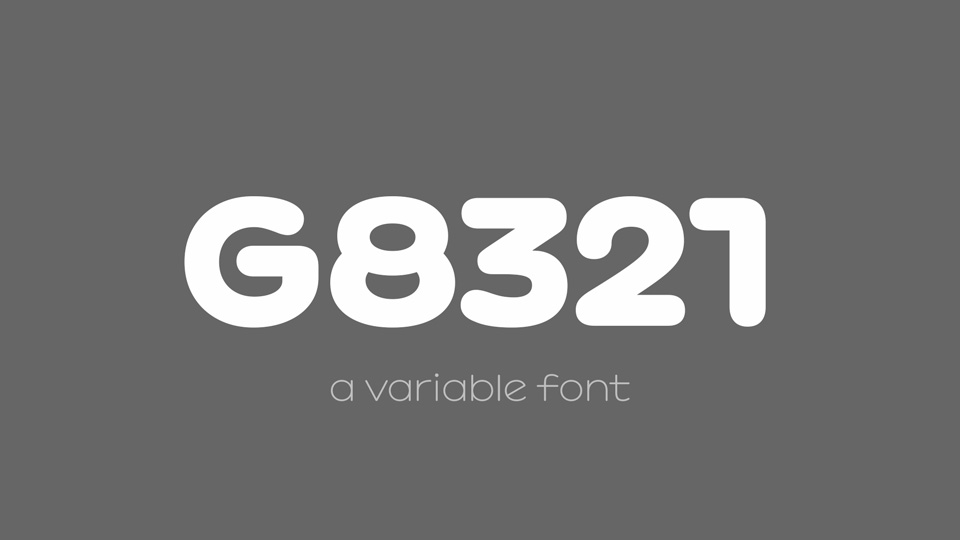
Feb 9, 2025Sans SerifG8321 Typeface G8321 is a geometric sans serif font family with soft rounded shapes. It comes in 9 weights from Thin to Black, including variable font.G8321 is a versatile typeface for body text and display use. Font DetailsDesigned by: Coji MorishitaWebsiteLicense: Free for commercial use, OFL Download G8321 TypefaceFile size: 534.51 KBCreated: February 16, 2025Updated: February 16, 2025 Download Explore similar fonts Aykiz Font Family TBJ Cinea Sans Font Family ZT Hakimi Font Family Lenia Soft Font Family Heading Now Font Family Uni Sans Font Family # Bold# Cartoon# Contemporary# Family# Geometric# Heavy# Rounded# Thin More fonts by Coji MorishitaM+ FONTS :: reDesign